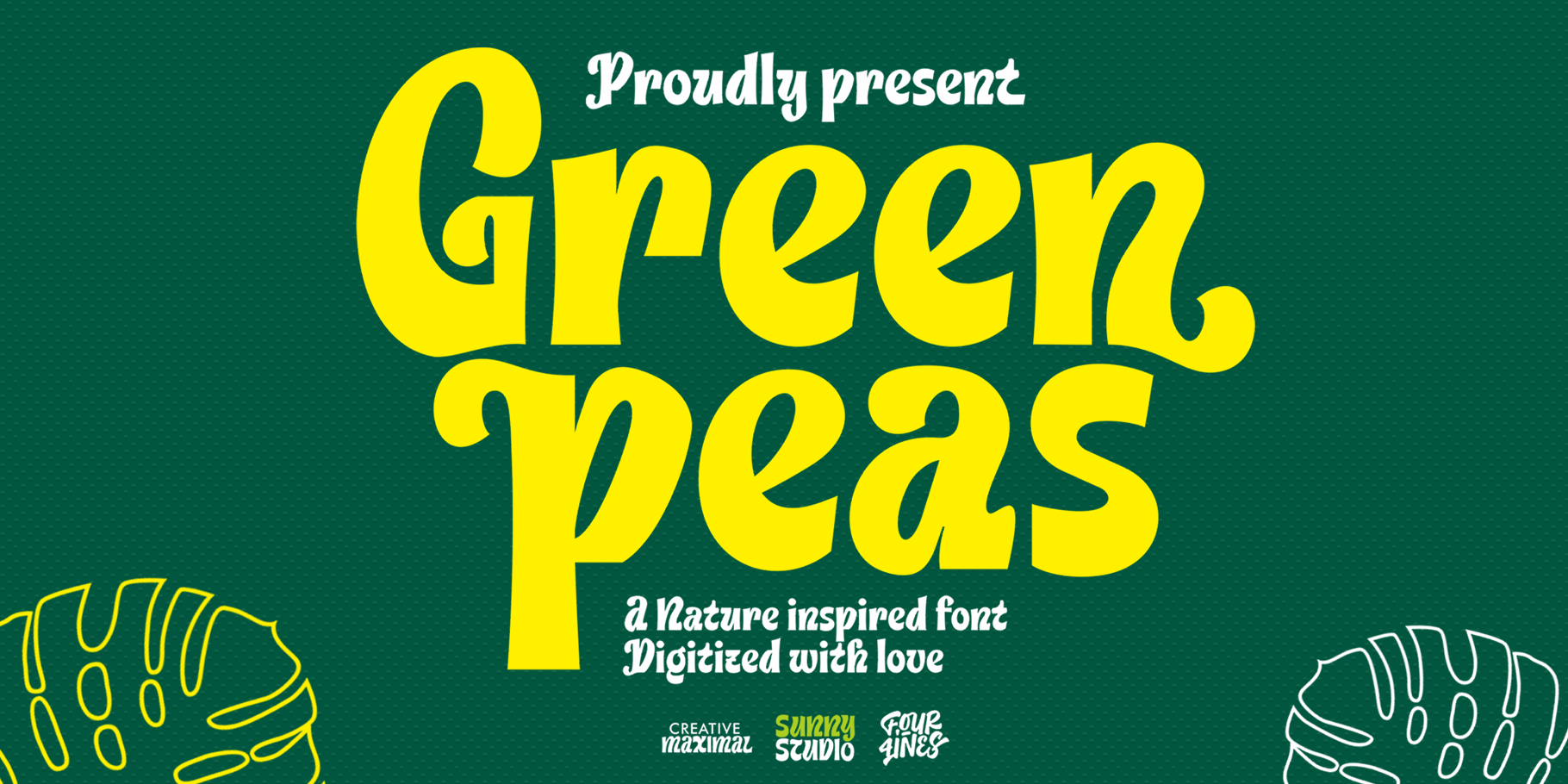
Green Peas Font Free Download is a fun, playful, and quirky script typeface designed with a hand-drawn, casual style. Its rounded, whimsical letterforms make it a perfect choice for creative projects like branding, children's book covers, party invitations, social media graphics, and any design that requires a joyful and approachable look.
The font's smooth curves and friendly character ensure strong readability while adding an element of playfulness to your designs. Green Peas is ideal for projects that seek to convey warmth, creativity, and a sense of fun, making it great for both print and digital media.
Green Peas is a delightful addition to any designer’s collection, offering a fresh and joyful style perfect for projects that need to evoke a lighthearted and friendly vibe.